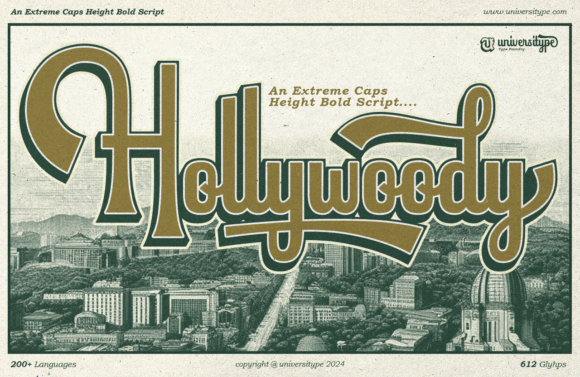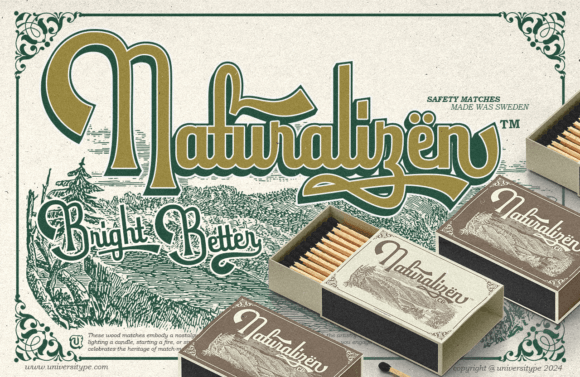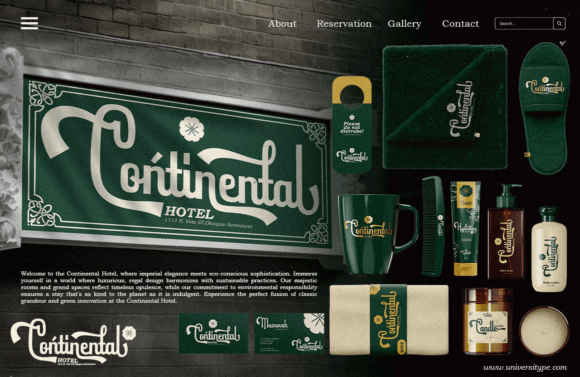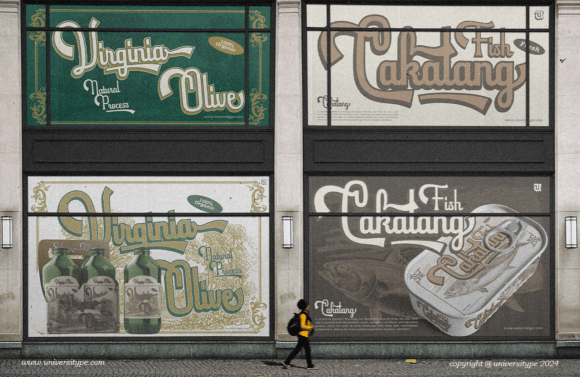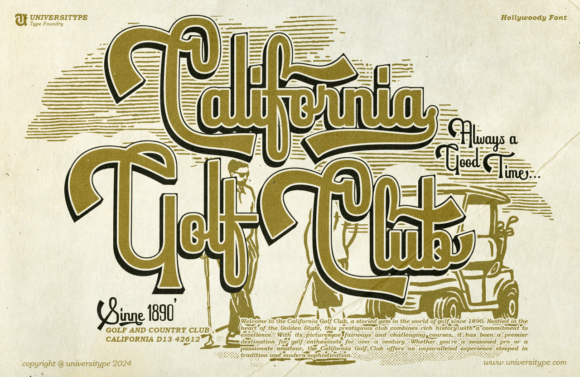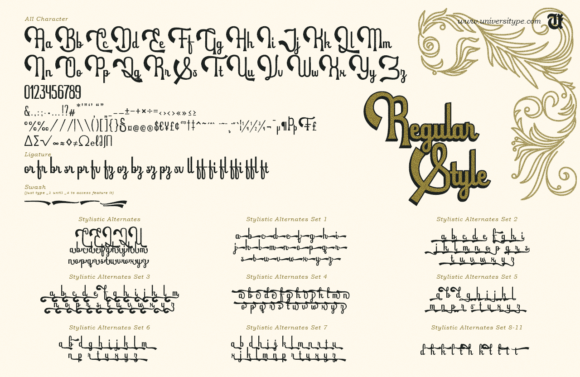
Introduction to Hollywoody Font
Enter the golden era of glitz and glamour with UT Hollywoody; a sublime merger of contemporary boldness and the enticing vintage allure.
This typeface, endowed with lofty caps and amiable curves, teleports you back to the glorious heyday of Hollywood; a time where charm and charisma ruled supreme From the luminous marquees of ancient cinemas to the distinctive signage of legendary studios, UT Hollywoody impeccably encapsulates this charismatic spirit, yet beautifully adapts to the pragmatics of present-day design.
Key Features of Hollywoody Font